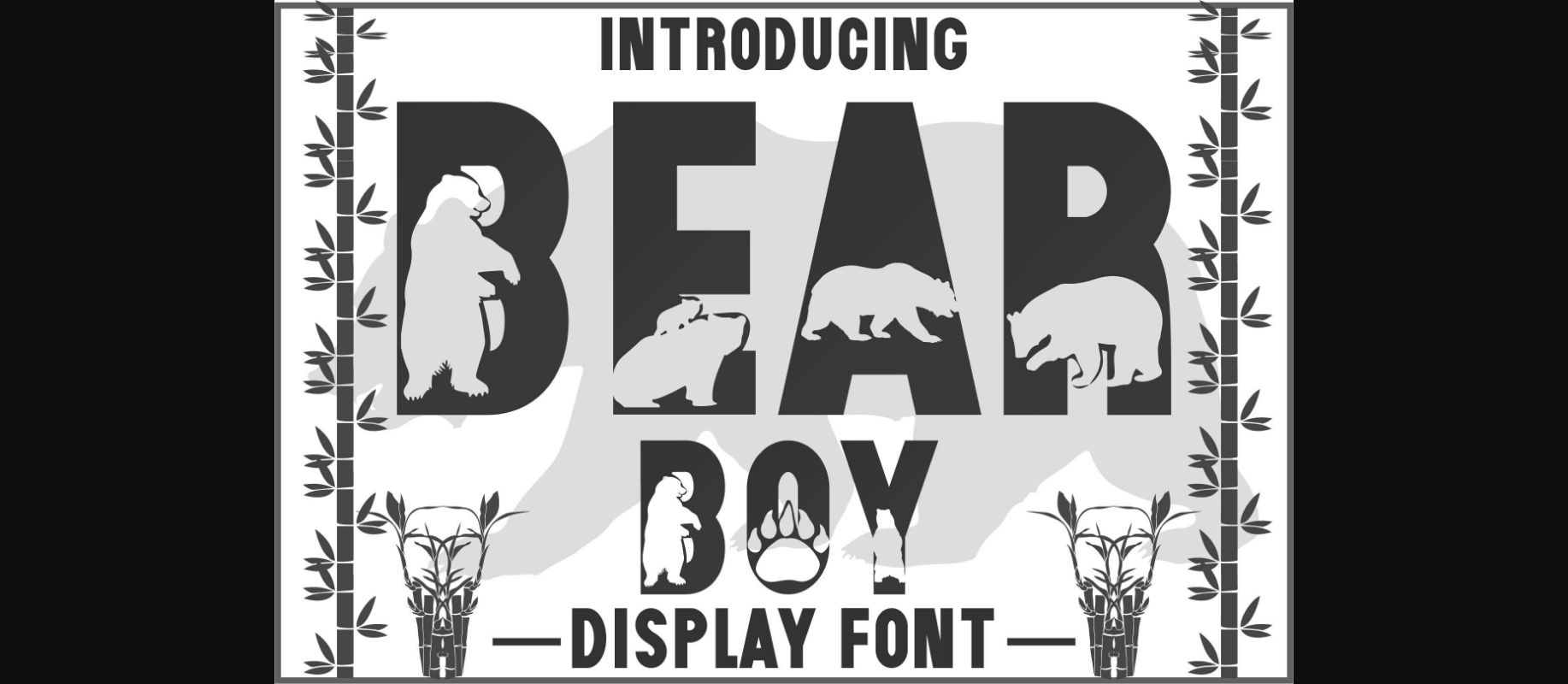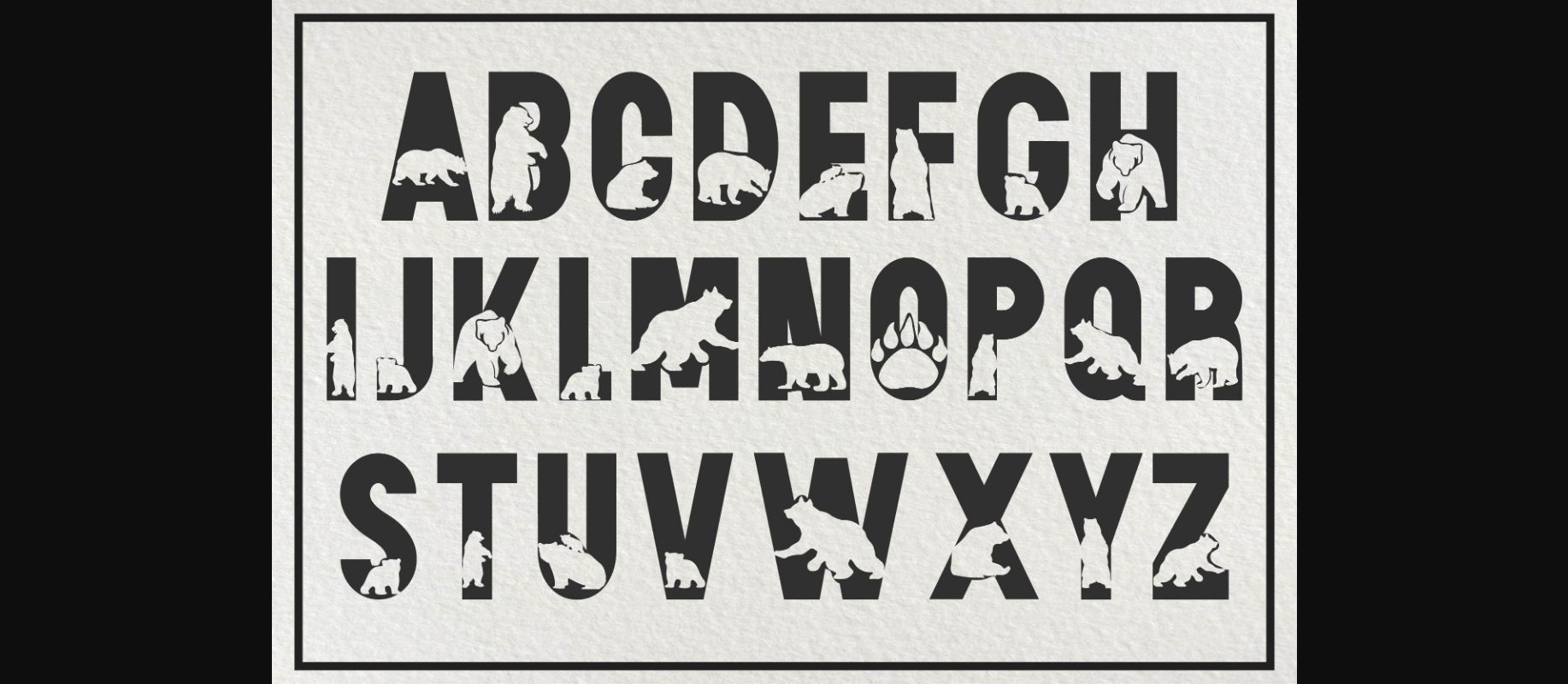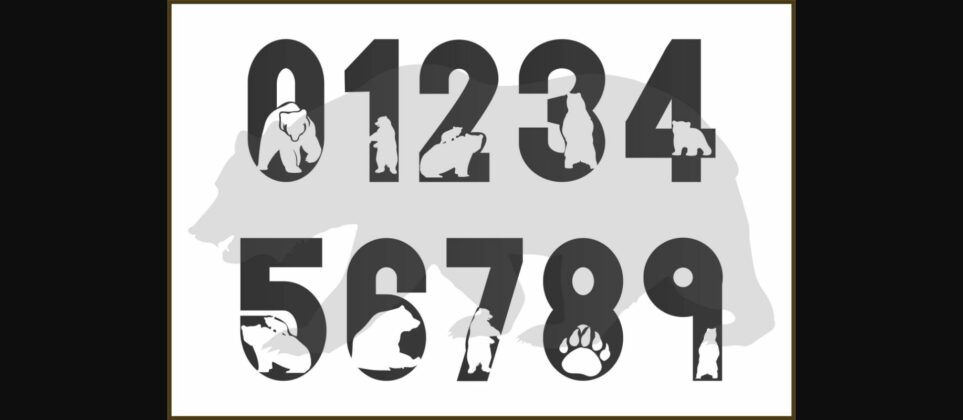
About Bear Boy Font
Bear Boy is a fun, original, and assertive decorative font. It is perfect for various design ideas related to fishing, camping, traveling, and more.